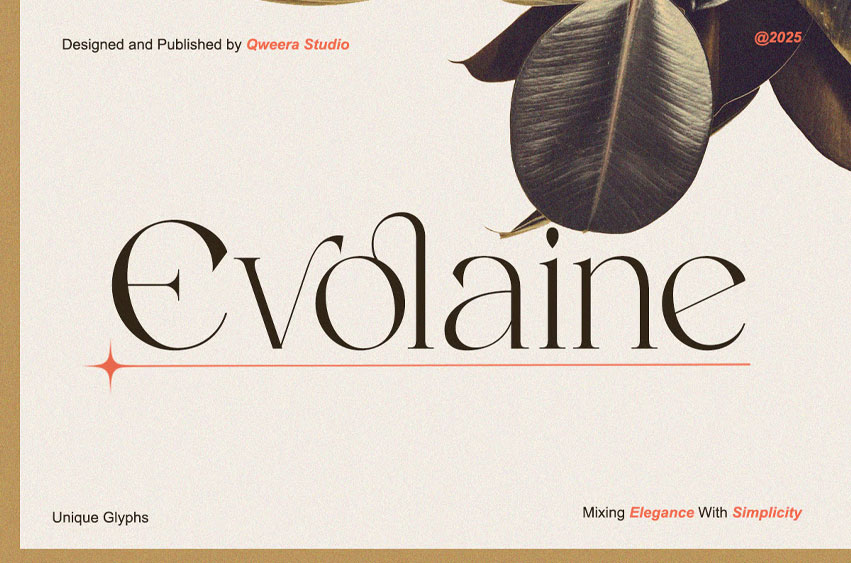
Evolaine Font
Evolaine Font. With its fluid lines, refined terminals, and sophisticated alternates, Evolaine captures both softness and strength in one typeface. Designed to elevate brands and deliver clarity with elegance, it feels right at home in both fashion and editorial contexts.
Perfect for visual identities that demand quiet luxury, Evolaine brings character to minimal layouts without losing modernity.
Use it for aesthetic logo marks, packaging design, or lifestyle presentations — Evolaine’s slender serifs and unique glyphs are crafted to leave a memorable impression.
• Stylistic alternates & ligatures
• Fashion branding & luxury logos
• Interior design presentations
• Editorial layouts & magazine headlines
• Product packaging & boutique labels
• Quotes, social media, website hero text
• Beauty, wellness, jewelry, and home decor